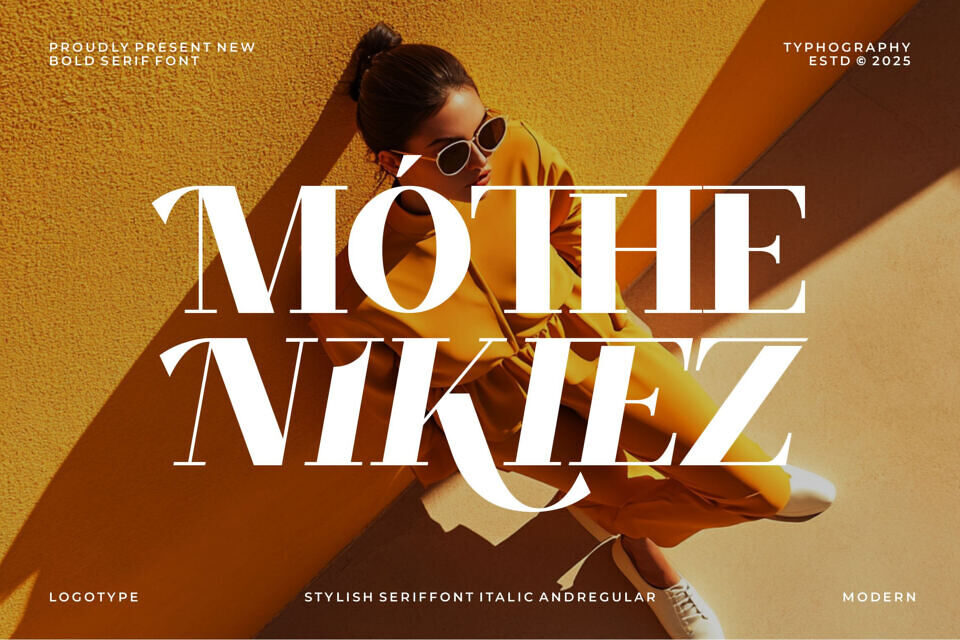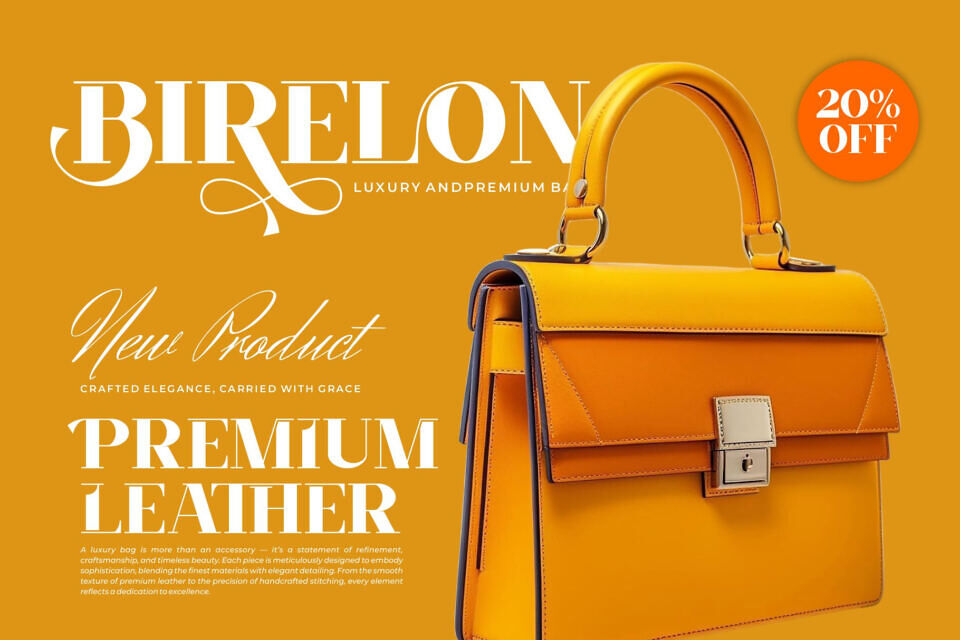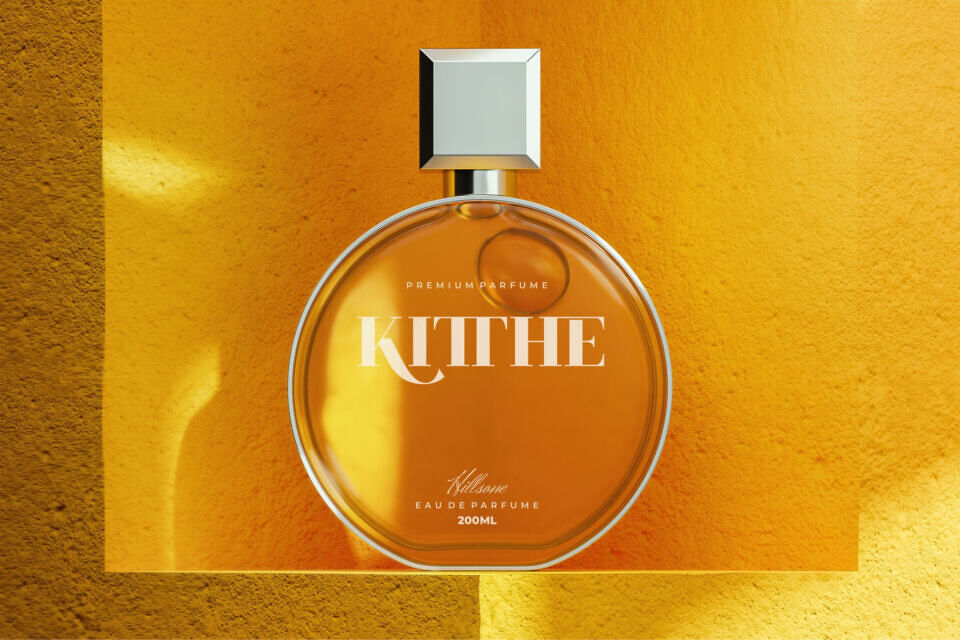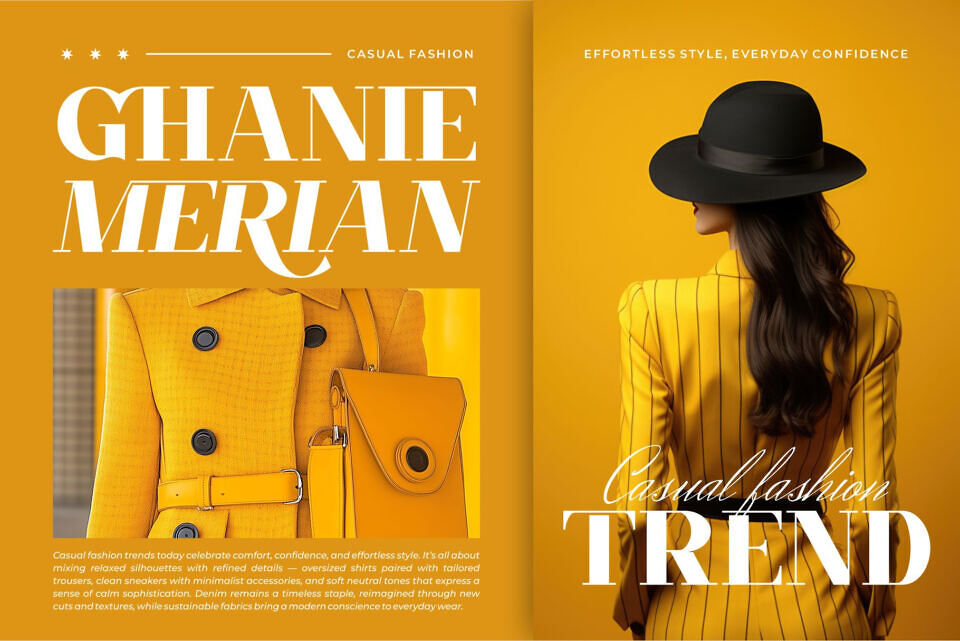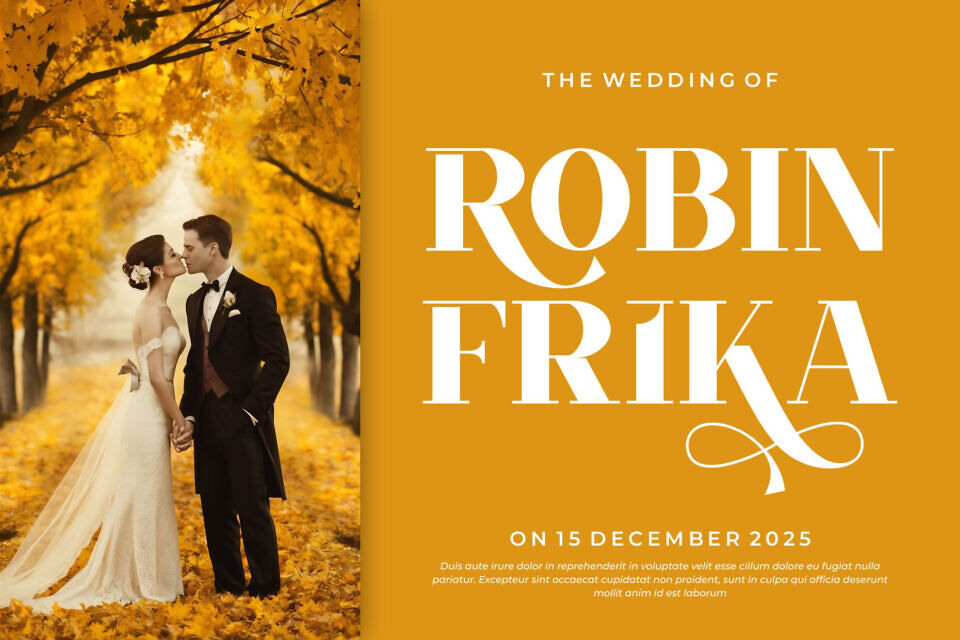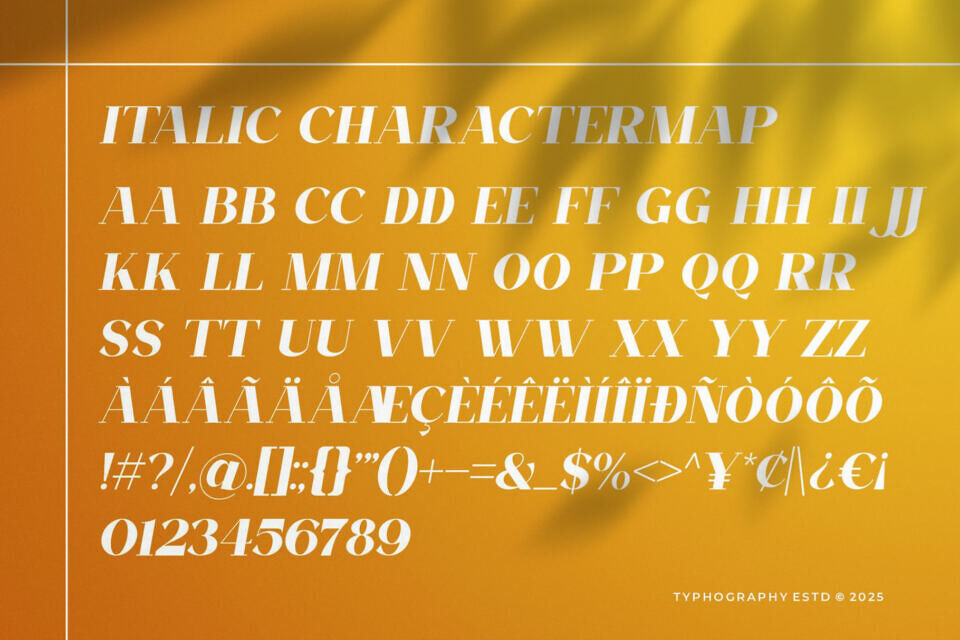
Mothe Nikiez Font
Mothe Nikiez Serif is a an elegant and smooth combine typeface regular and italic serif font. He has a beautiful character. It fits perfectly with invitation card designs, company logos, movie titles, movie names, business cards, book titles, brand names and various other designs.
Mothe Nikiez Serif is a subtle serif font that exudes sophistication and elegance. Its stylish alternations and ligatures make this font the perfect partner for any project.